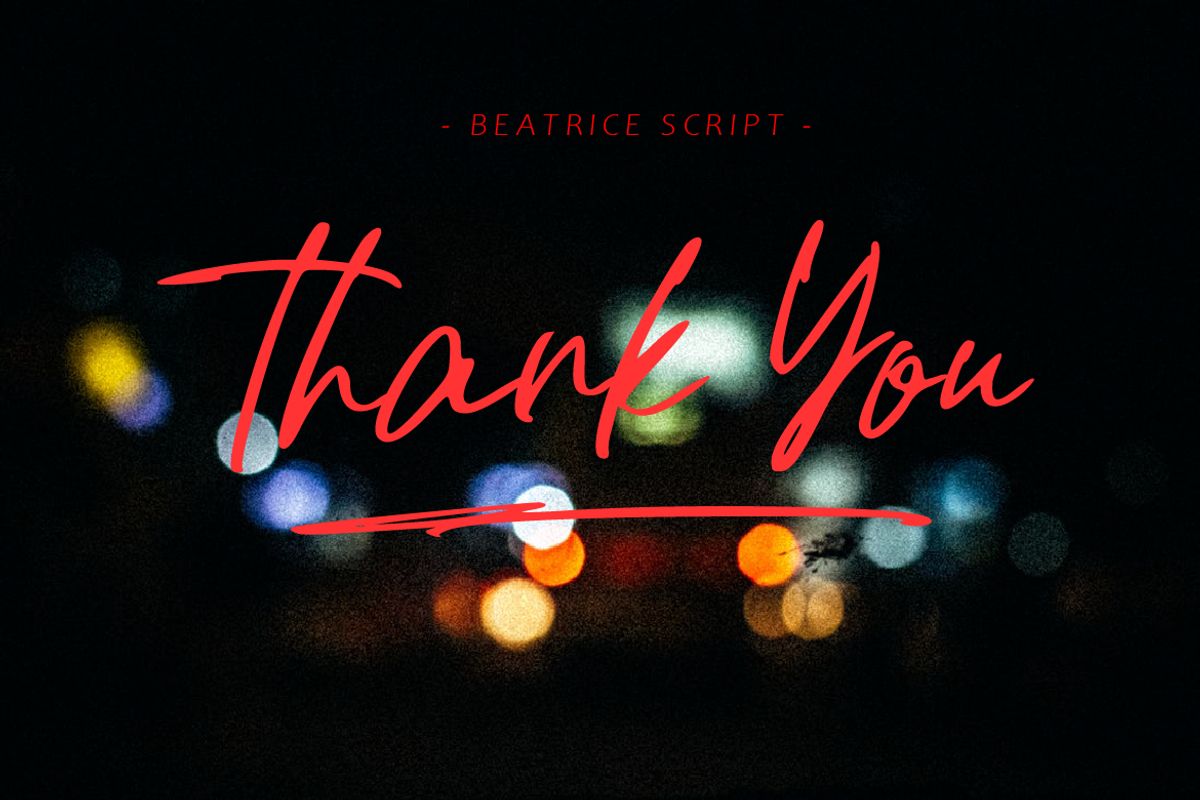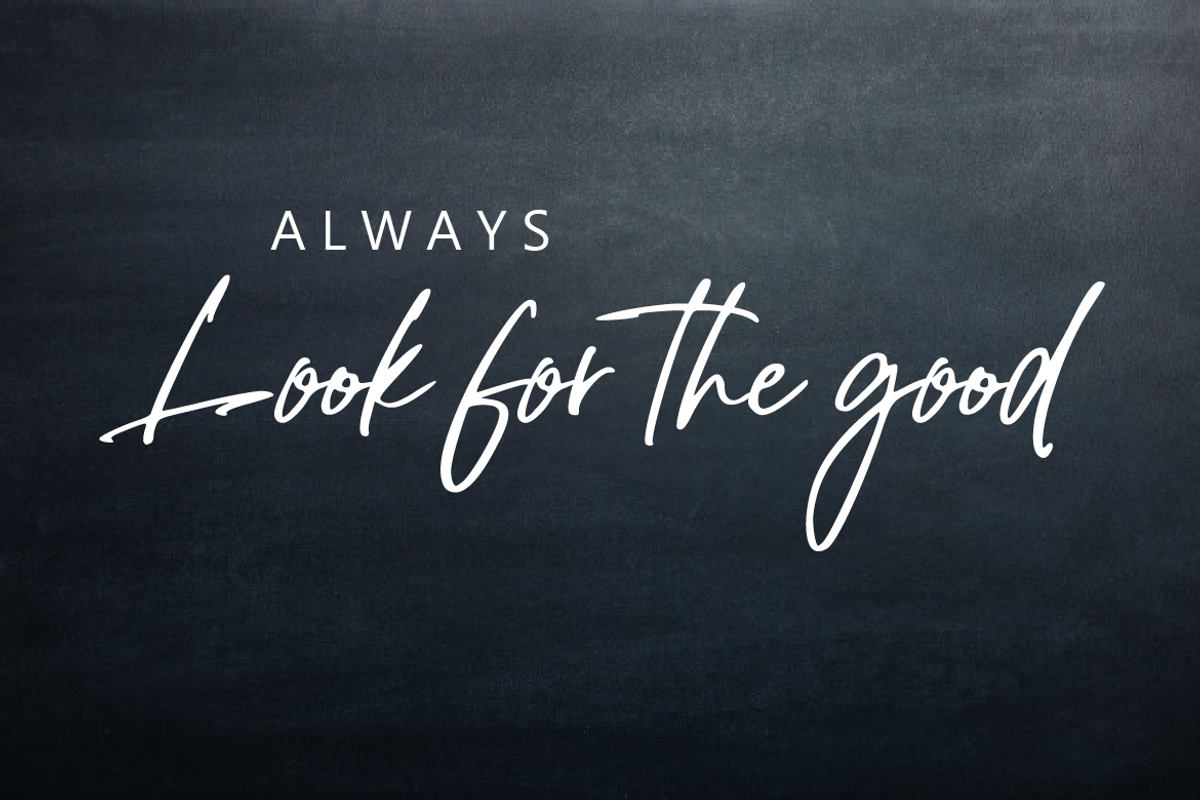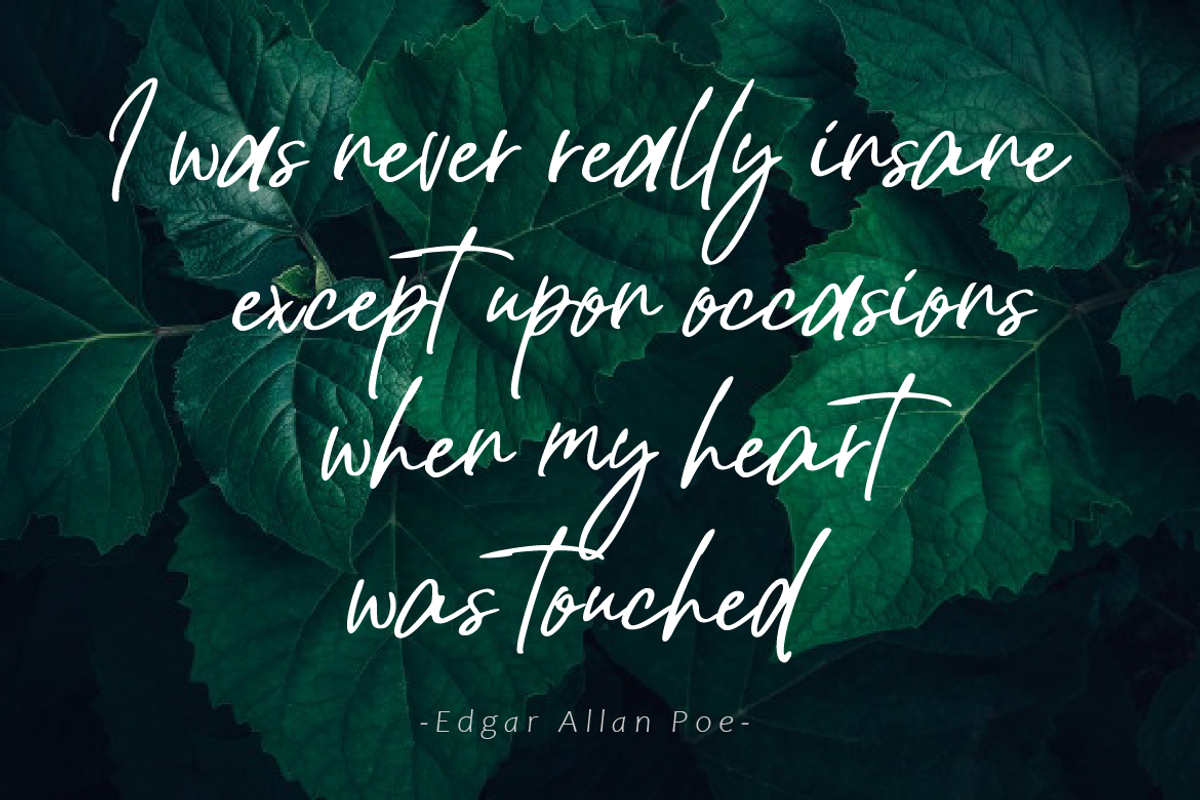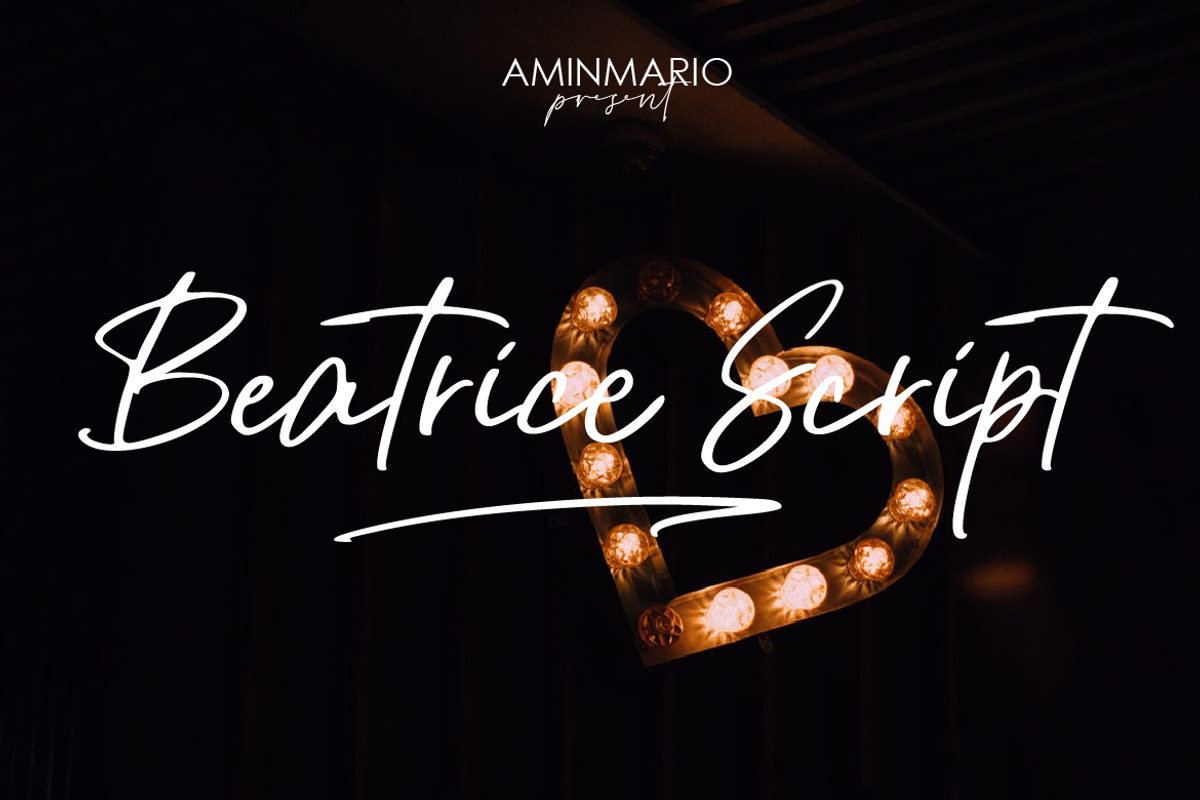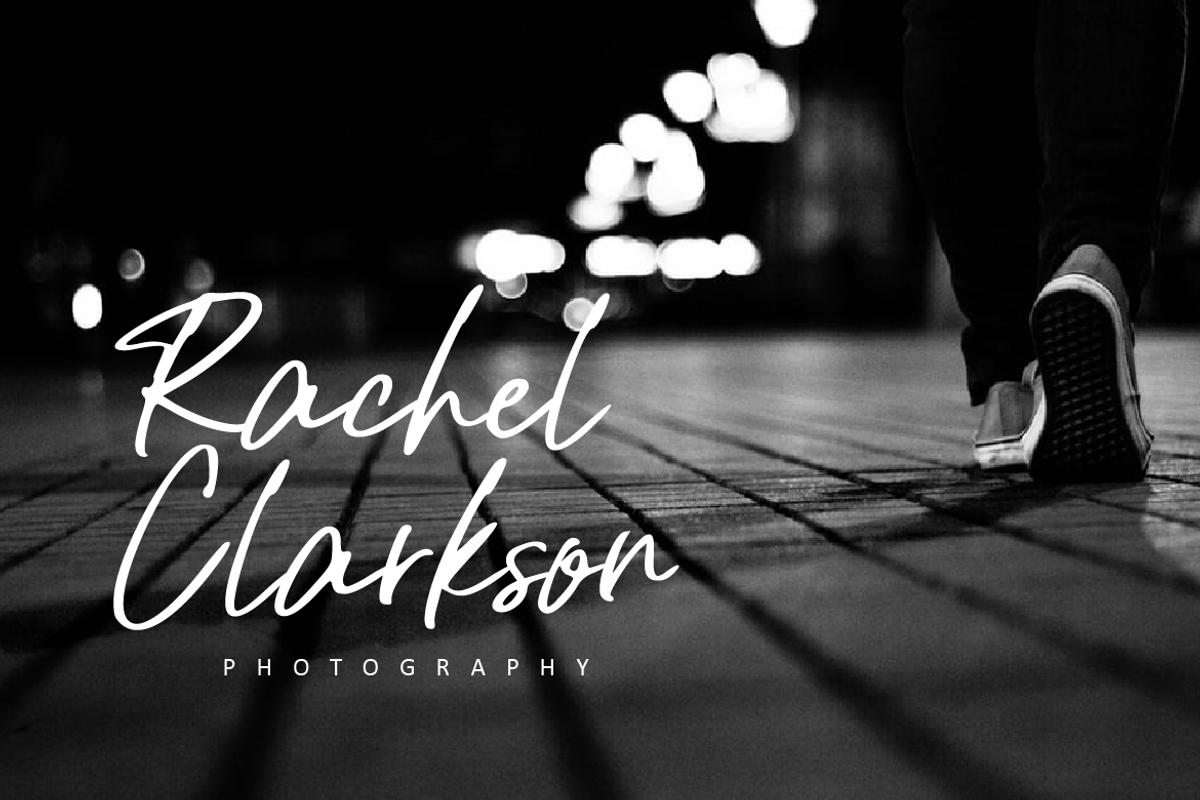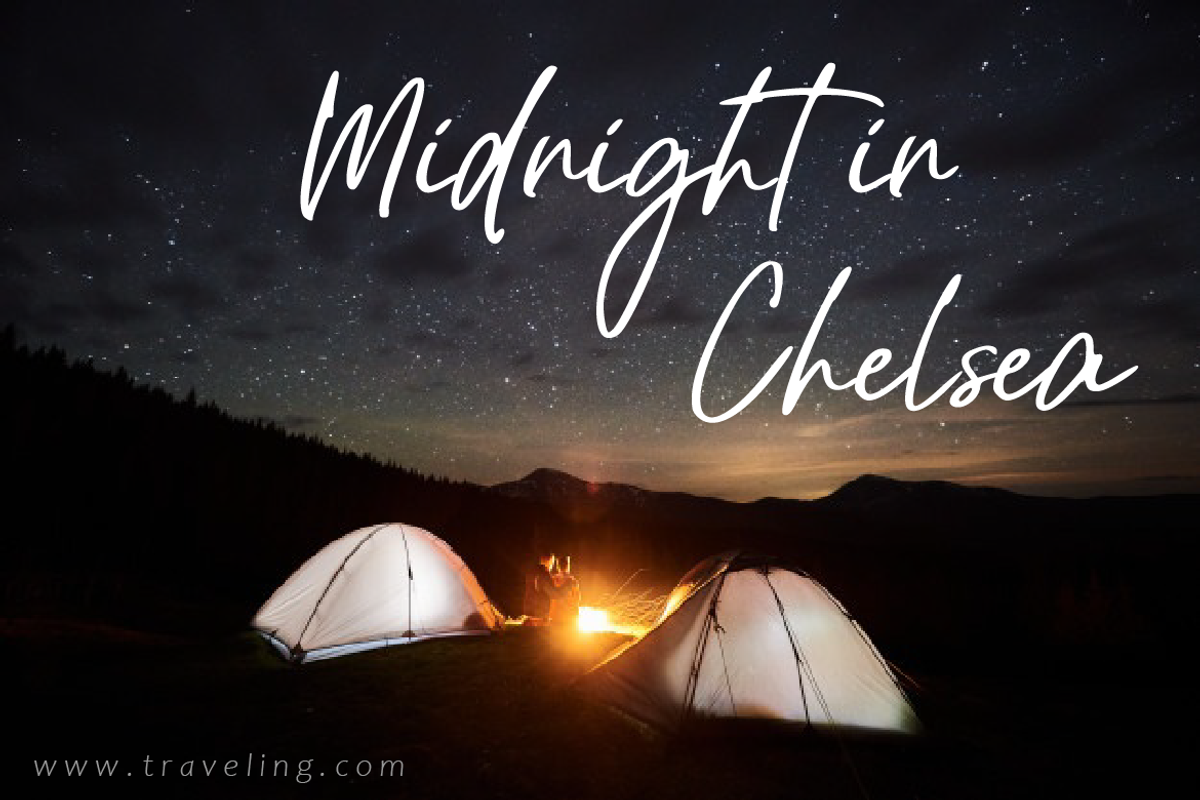
Beatrice Script
Beatrice Script is a modern script, full of personality and curves. This font was designed to give natural handwritten look in a digital world. Perfect for any awesome project that need hand writing taste. And good for pairing with Sans or Serif
This is suitable for quotes, invitations, stationery, wedding design, logos, watermarks on photography, signatures, branding, advertisement, album covers, business cards, clothing, magazines, posters, and more! Also support multilingual.
As usual ,the font comes with many opentype features such as Alternates,Ligature and underline. Also support multilingual. You can access all those alternate characters by using Opentype or Glyph program such as Adobe Illustrator cs,Adobe Photosop cc, Adobe InDesign, etc.